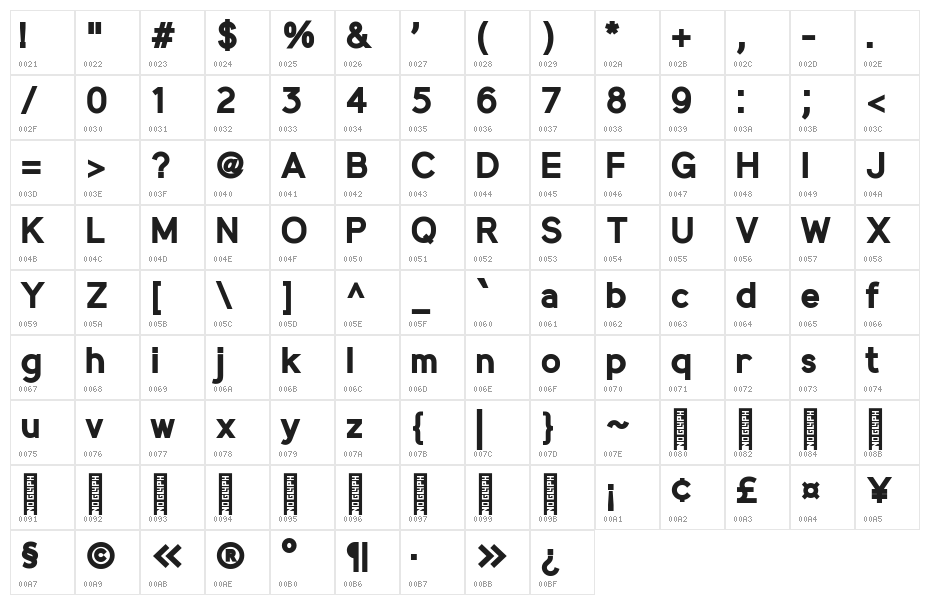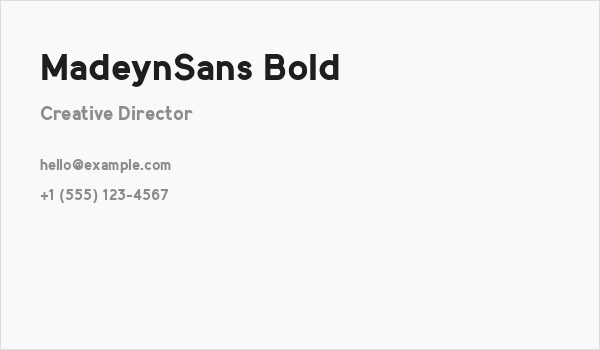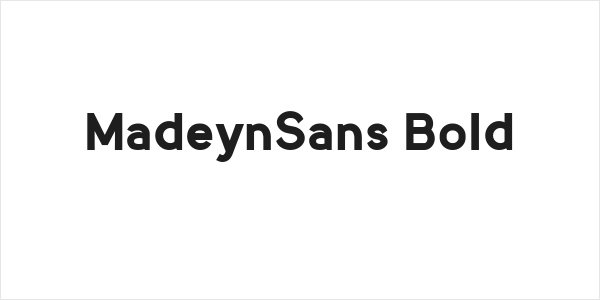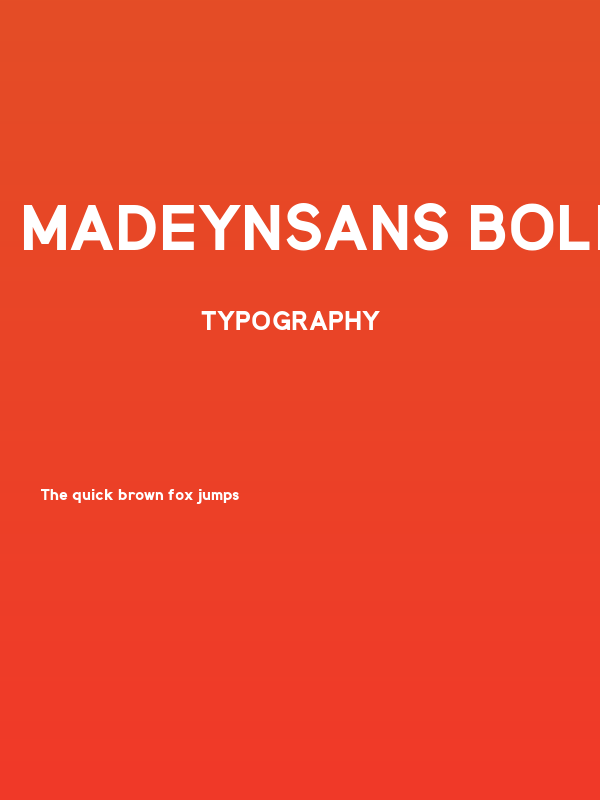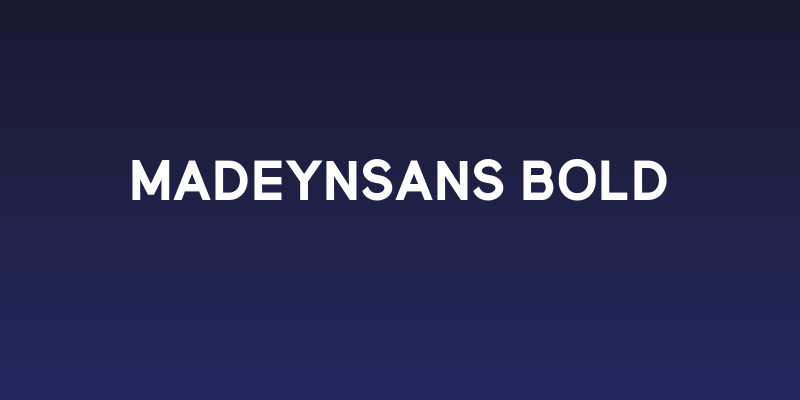
MadeynSans Bold Font
MadeynSans Bold Description
This font features a bold and modern sans-serif style with clean, geometric lines. The uppercase letters are uniform in height, providing a strong and cohesive appearance. The lowercase letters maintain a consistent weight, contributing to the font's overall balance. The numerals are clear and easily distinguishable, making them suitable for various applications. Special characters are well-defined, enhancing the font's versatility. The design is straightforward yet impactful, ideal for making a statement.
| Proposed Projects | Ideal for branding, advertising, headlines, and digital media projects where a strong, modern presence is desired. |